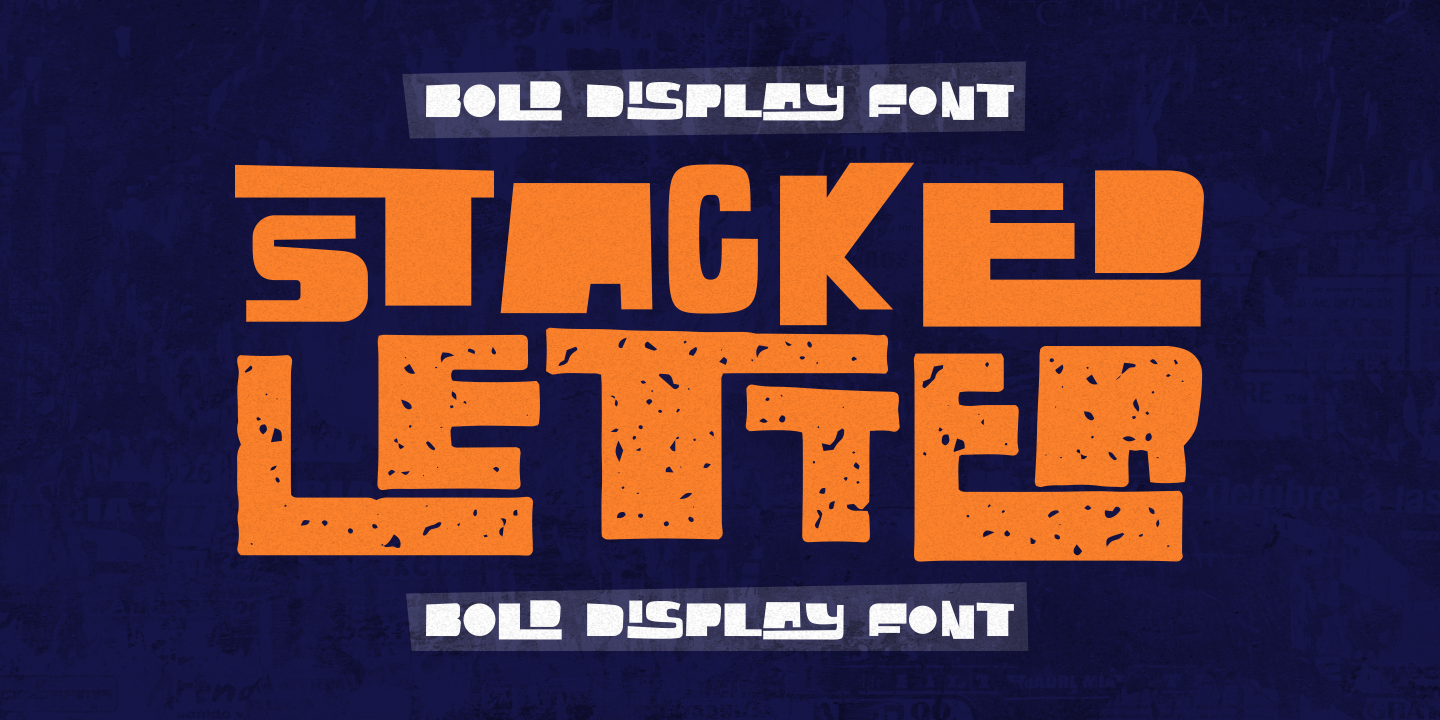
Stacked Letter Font is perfect for a wide range of design applications including architectural signage systems, modular construction branding, urban street art projects, industrial design graphics, modern building logos, contemporary art installations, geometric poster designs, structural engineering materials, vertical layout publications, and dimensional editorial presentations.
What makes Stacked Letter Font exciting is its innovative dimensional design and architectural sophistication that perfectly captures the structural precision and spatial awareness of modern construction and geometric design principles. This groundbreaking typeface brings a sense of three-dimensional depth and architectural innovation to any project with its uniquely engineered letterforms that showcase layered construction and vertical stacking elements reminiscent of building blocks and modular architecture. The font's structural character shapes and dimensional proportions create an atmosphere of engineering excellence and spatial creativity that resonates with audiences seeking innovation, precision, and architectural sophistication, making it an ideal choice for brands emphasizing construction, modular design, and dimensional thinking.
The Stacked Letter Font family includes multiple weights and styles designed to accommodate various architectural and dimensional design requirements. The collection typically features regular, bold, light, and layered variations, each maintaining the font's signature stacked aesthetic while providing comprehensive design flexibility. Additional architectural symbols and dimensional ornaments enhance the family's creative potential for construction-focused design projects.
This premium Stacked Letter Font Free Download represents an extraordinary opportunity for designers to explore dimensional typography trends with authentic architectural appeal. The font's innovative approach incorporates structural design principles and contemporary architectural aesthetics that bring genuine construction authenticity to modern building and engineering projects. Its versatile nature makes it suitable for both digital applications and print materials, ensuring consistent brand representation across architectural, construction, and design sectors.
Professional designers appreciate Stacked Letter Font's exceptional innovation and comprehensive character support. The font includes extensive punctuation marks, numerical figures, architectural symbols, and international language capabilities, making it perfect for global construction brands and international architectural projects. Its dimensionally optimized spacing and kerning ensure professional results in architectural branding, construction signage, and structural marketing applications.
The growing recognition of Stacked Letter Font in the design community reflects its ability to enhance spatial identity and create powerful visual experiences that celebrate architectural innovation and dimensional design thinking. Whether used for construction company branding, architectural firm materials, or dimensional creative projects, this font delivers exceptional results that honor the precision of structural engineering and the creativity of modular design.